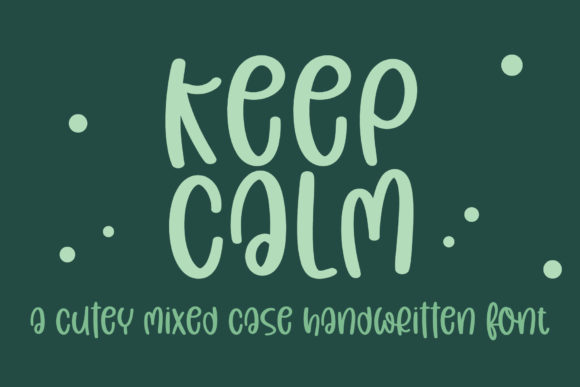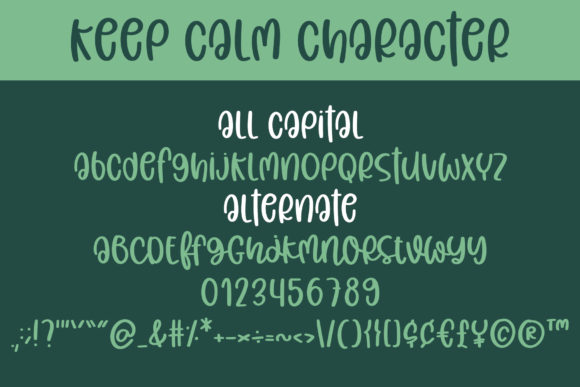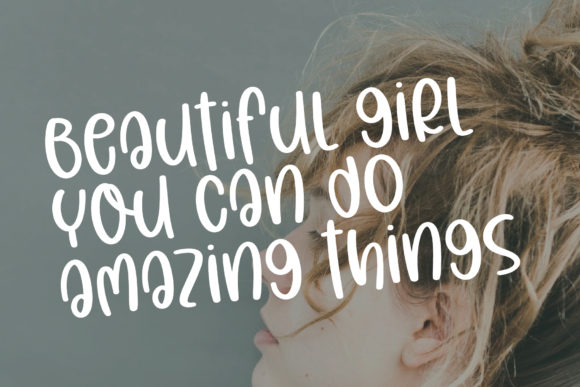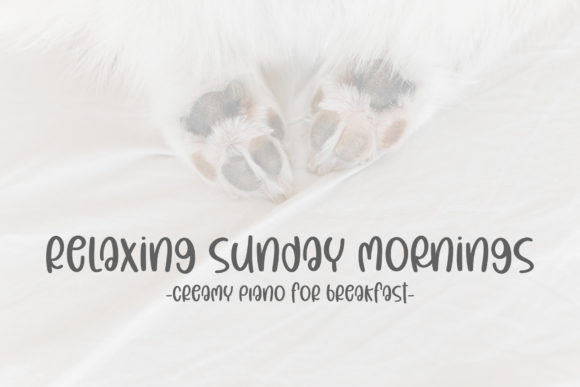
Keep Calm Font
About the Keep Calm Font
Welcome to the world of Keep Calm Font, a typeface that will inspire your next great project. Keep Calm is a cute handwritten with a relaxed feel. It is a mixed cased font that can be used to add a cheerful touch to your posters, logos, business presentations, and social media posts. This font is PUA encoded which means you can access the available glyphs and swashes with ease!
Keep Calm’s relaxed, friendly personality makes it ideal for projects requiring a touch of informal charm. It excels in headlines, short taglines, and logos for brands targeting a younger demographic or conveying a sense of approachability. Consider it for packaging designs, social media graphics, and invitations. However, its informal nature makes it less suitable for body text or applications requiring high readability, such as long-form content or UI elements.
Pairing Keep Calm with a clean sans-serif like Open Sans or Lato provides a balanced contrast, allowing the handwritten style to shine without overwhelming the design. For a more playful aesthetic, a rounded geometric sans-serif such as Futura or Gill Sans would be a fitting complement. Avoid pairing it with overly ornate or heavily textured fonts, as this could create visual clutter.
Its inherent informality and gentle curves make it less effective for projects demanding seriousness or sophistication. The font’s overall mood is best described as cheerful and approachable, suggesting its suitability for brands focusing on handmade goods, lifestyle products, or events with a casual atmosphere.
Keep Calm Font Usage Examples
Keep Calm Font Example